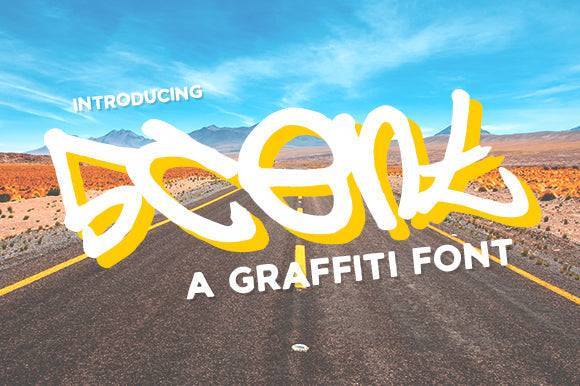
5cent Free Graffiti Font for Cricut, Silhouette and Printable Designs
This graffiti font captures the bold, raw style of street lettering and urban tags. Designed for digital crafters and print designers, it's ideal for use in cutting machines and printable design tools that support custom fonts. With its edgy aesthetic and versatile application, this font brings a vibrant urban flair to any project. Whether you're creating unique t-shirts, eye-catching posters, or standout stickers, this is the always ready font for crafts that elevates your designs. Embrace the spirit of the streets and let your creativity flow with each brush stroke and cut.
As a font entity, 5cent Free delivers hand-drawn energy through structured character shapes that translate well across digital and physical formats. Its strong attitude makes it great for youth apparel, brand visuals, or music-themed artwork.
The font provides fast integration for creative software and instant impact in everything from poster design to vinyl decals.
- Authentic graffiti style in font format
- Works great with Cricut and Silhouette
- Strong visual identity for urban projects
Q: What kind of font is 5cent Free?
A: It’s a graffiti-style display font available in OTF and TTF formats, designed to bring bold street aesthetics into craft and print projects.
Q: Can I use this to design printables and vinyl decals?
A: Yes, it’s perfect for both printed and cut-based projects with a bold urban look.